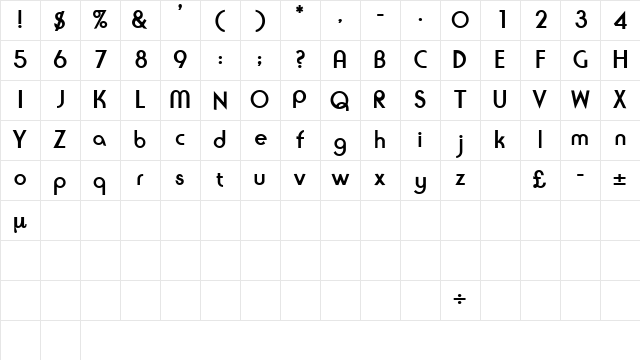
Complete SeriusSSK Bold glyph index. Displaying only characters natively supported by SeriusSSK Bold font.
SeriusSSK is a composed and adaptable typeface that performs quietly and consistently across a wide range of design contexts. Its bold stroke weight gives it real presence on the page.